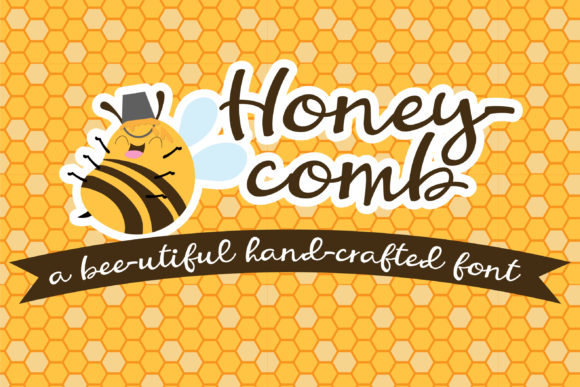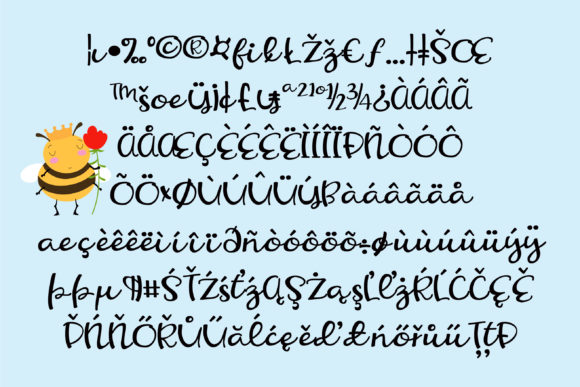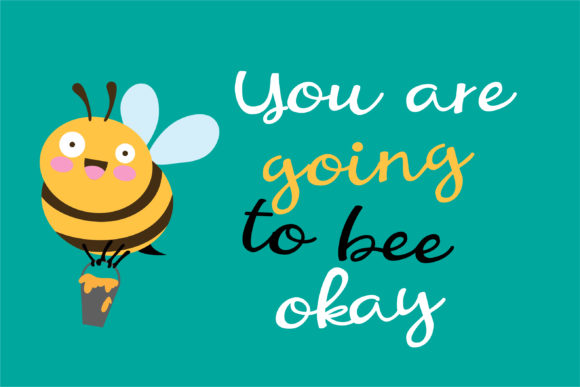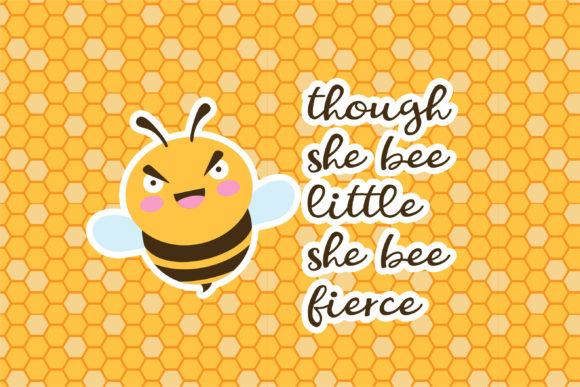
About Honeycomb Font
This hand-crafted script is a delightful addition to any project, imbued with a casual and approachable feel that brings a home-made touch to your designs. Its charm lies in the authenticity of its handwritten style, creating a warm and personal aesthetic that resonates with a sense of familiarity and comfort.
The casual feel of this script makes it an excellent choice for projects where you want to evoke a laid-back and unpretentious atmosphere. Whether used in digital or print materials, it adds a genuine and handmade quality that stands out in a world often dominated by digital precision.
This script’s versatility extends across various applications, making it suitable for greeting cards, invitations, posters, social media graphics, and more. Each stroke carries a sense of spontaneity, contributing to the overall visual narrative and creating a connection with the audience.
In the realm of design, where personalization is key, this hand-crafted script serves as a valuable tool for infusing a sense of personality into your projects. It’s more than just a font; it’s a design element that transforms ordinary text into a canvas of warmth and authenticity.
In essence, this hand-crafted script with a casual feel is an invitation to embrace the charm of imperfection and the beauty of the handmade. It stands as a reminder that in the world of design, a touch of casual authenticity can elevate your projects, making them more relatable and appealing. Whether you’re crafting a homemade label, a personalized invitation, or a cozy social media post, this script is your ally in creating a welcoming and genuine visual experience.